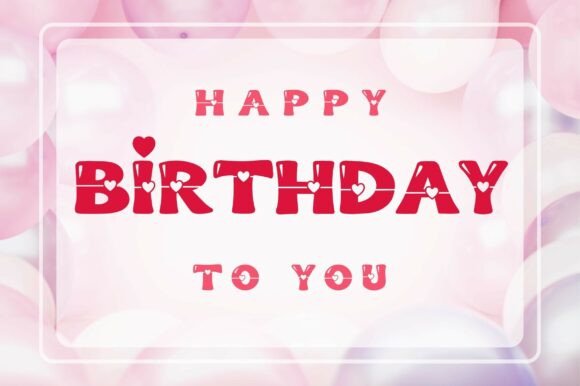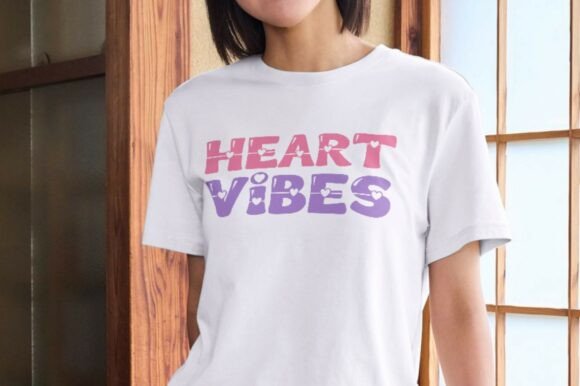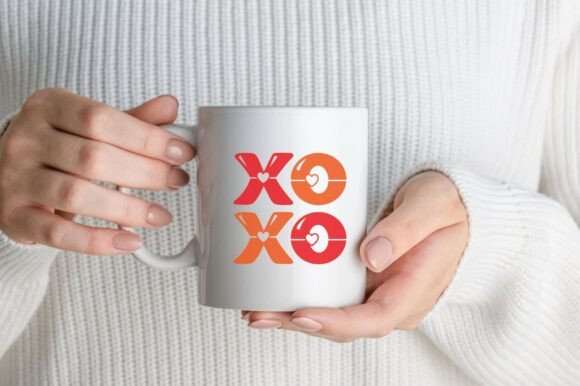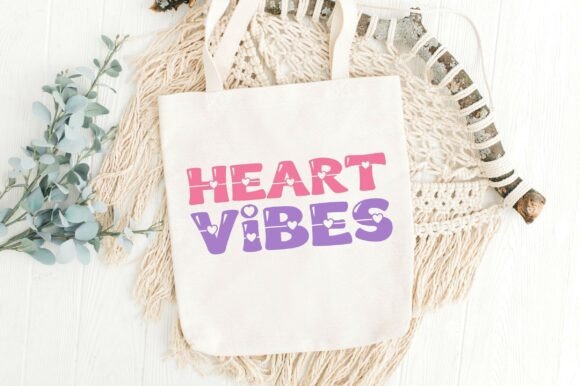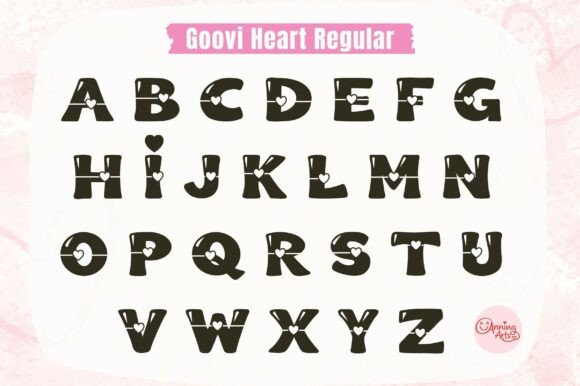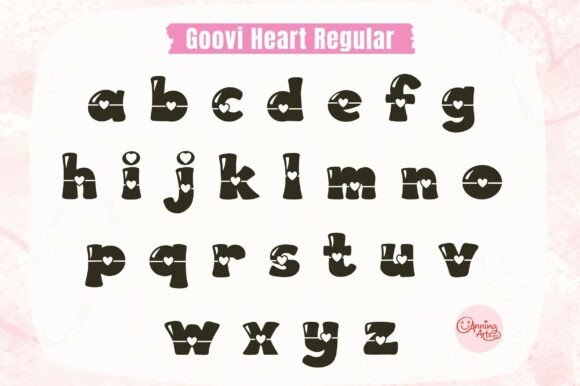
Introduction to Groovi Heart Font Font
Fonts play a crucial role in design, and the Groovi Heart Font font is a typeface that brings both character and versatility to any project. Whether you’re working on a branding project, a website, or a print design, the Groovi Heart Font font offers a unique style that can elevate your work.
Groovi Heart is a cute and playful Valentine decorative font featuring sweet heart details inside each letter.
Designed with bold, rounded shapes and a fun groovy style, this font is perfect for love-themed projects, Valentineβs Day designs, and cheerful handmade creations This Groovi Heart font works beautifully for: Valentine cards & love quotes T-shirt, mug & tote bag designs Stickers, sublimation & print-on-demand Romantic posters, invitations & social media graphics.
The Groovi Heart Font font is more than just a typeface β it’s a design tool that helps you communicate your message with style and clarity. Its unique character set and versatile design make it suitable for a wide range of applications, from elegant invitations to bold headlines.
With its carefully crafted letterforms and balanced proportions, the Groovi Heart Font font ensures readability and visual appeal across all mediums.
What makes Groovi Heart Font font special?
The Groovi Heart Font font stands out with its unique design, exceptional readability, and versatility across various design applications.